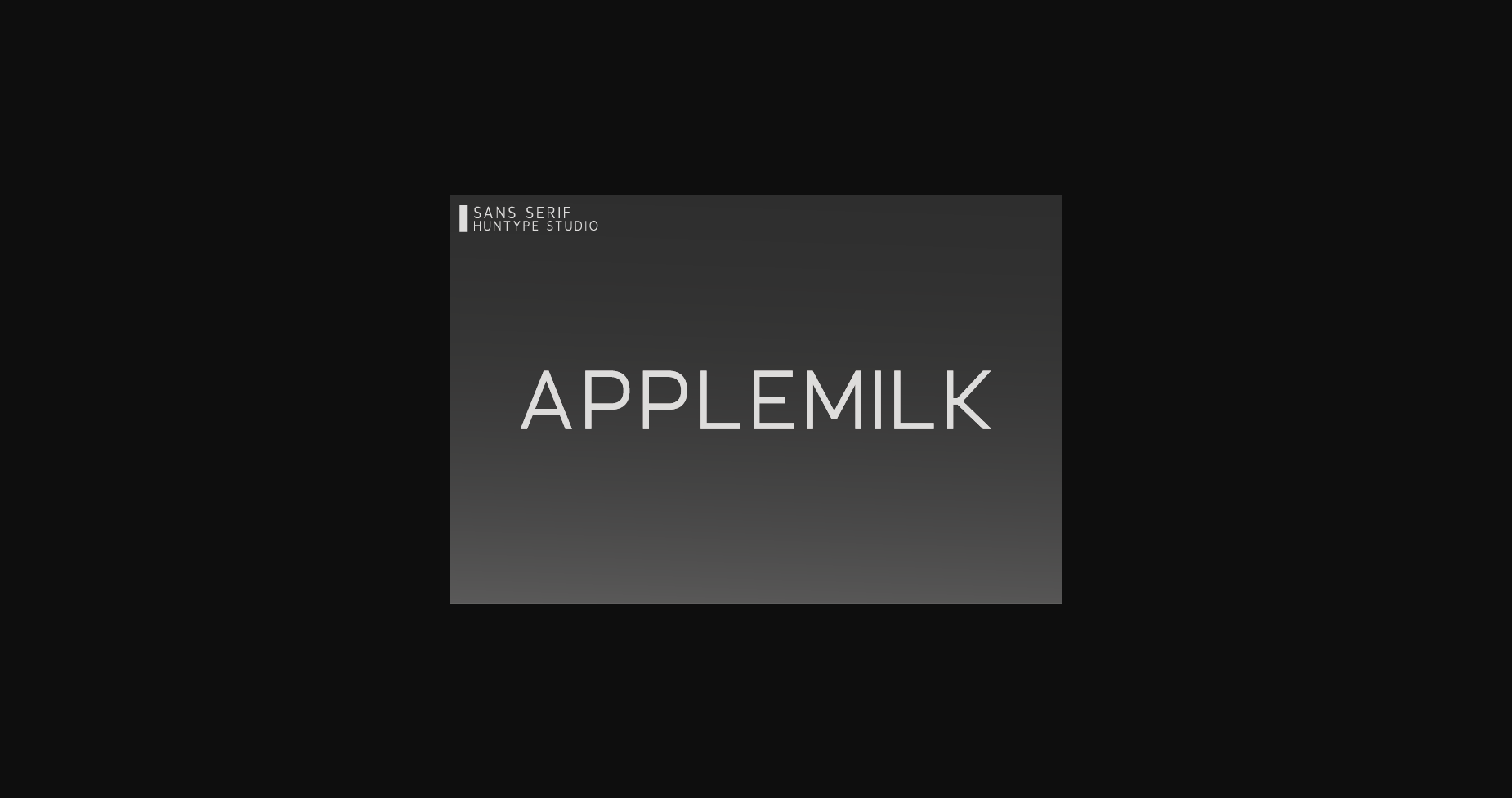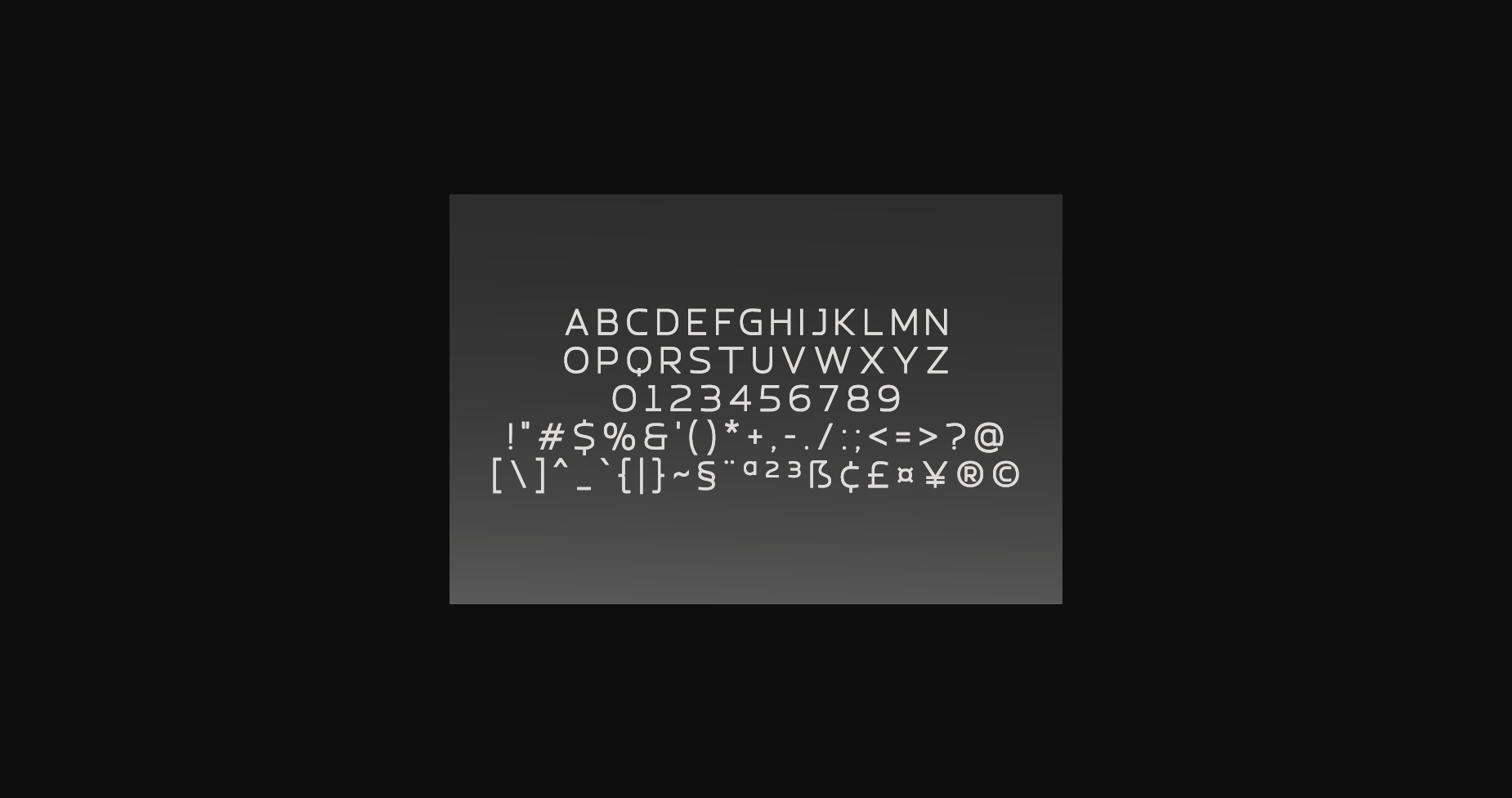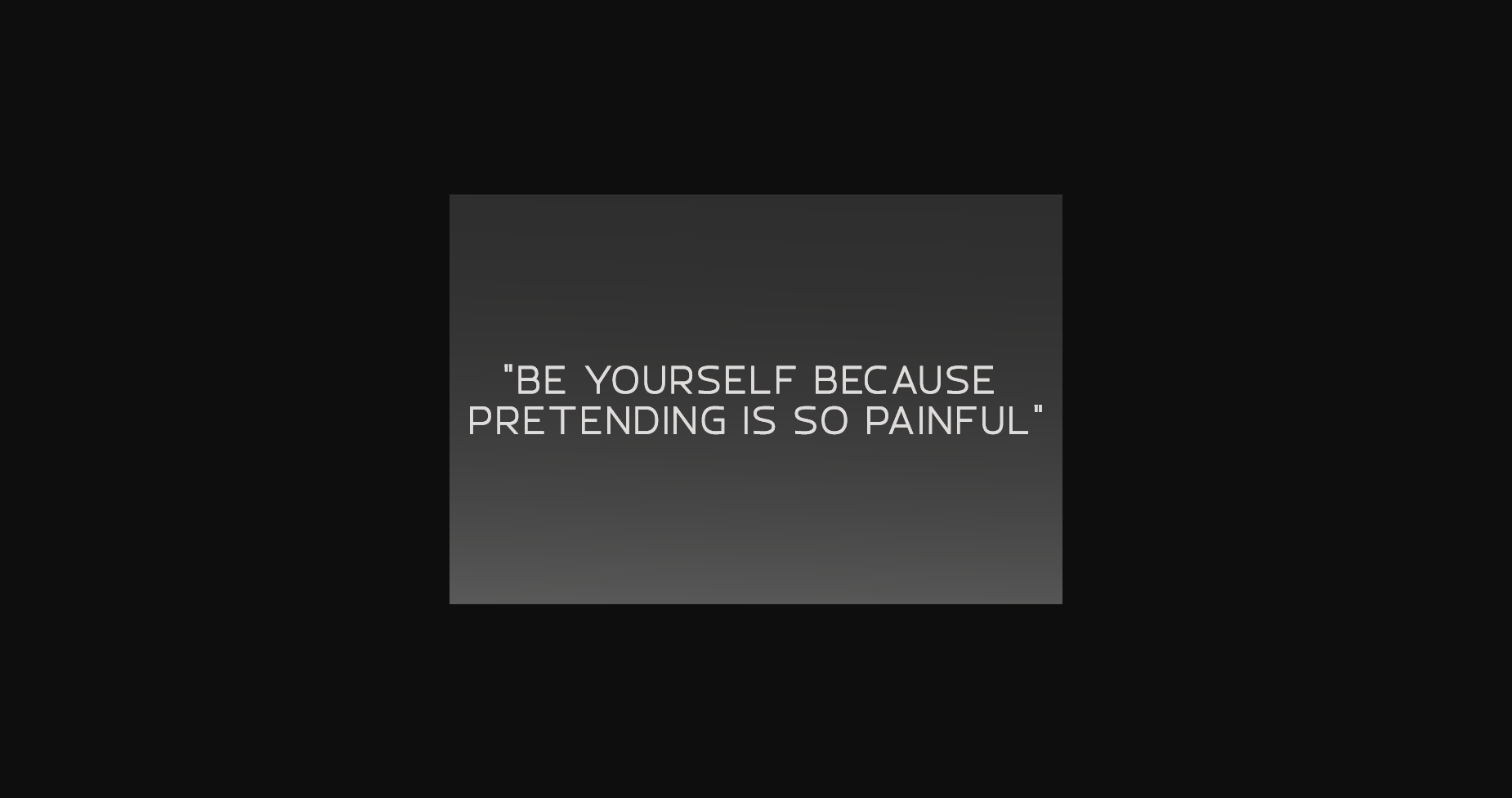
HomeSans Serif FontsApplemilk Font Sans Serif Fonts Applemilk Font FacebookXPinterestWhatsApp 1 of 5 ... Applemilk Font Poster 2... Applemilk Font Poster 3... Applemilk Font Poster 4... Applemilk Font Poster 5... About Applemilk Font Applemilk is a clean and simple sans serif font. With smooth and delicate lines, this font works beautifully for logos, branding, and web headings. DOWNLOAD NOW People also explored Wallet Simple Thinks Font Roseanne Font Congrates Font Marsha Belle Script Font Lemontea Font Serival Sans Font Jim Dandy Absinthe Pro 282 0 TagsApplemilk Font Previous articleHerose FontNext articleNermon Font LEAVE A REPLY Cancel reply Comment: Please enter your comment! Name:* Please enter your name here Email:* You have entered an incorrect email address! Please enter your email address here Website: Save my name, email, and website in this browser for the next time I comment. Personal Use Free Hommy You Personal Use Free Read more about this font Quick Count Personal Use Free Read more about this font Round Geometric Personal Use Free Read more about this font Cute Messy Personal Use Free Read more about this font BLOG Elegant Wedding Invitation Fonts – Handwritten & Script Fonts Elegant Wedding Invitation Fonts Your wedding day is one of the most important moments of your life, and every detail matters—including your invitation design. Our... Modern Sans-Serif Fonts That Brands Love in 2025 Best Fonts for T-Shirt Design – Top 2025 Picks How to Cut Any Font on Cricut: Convert a Font to SVG (Free)